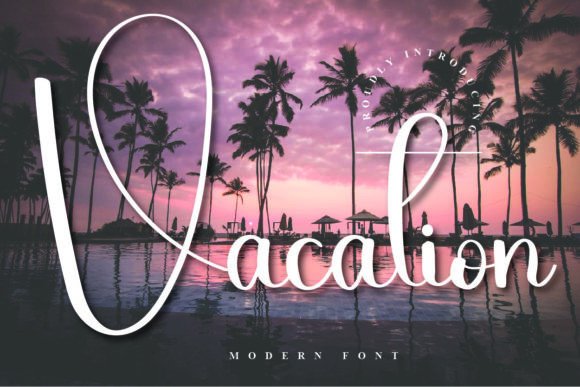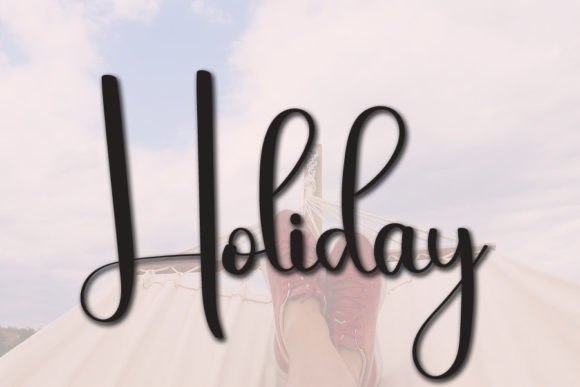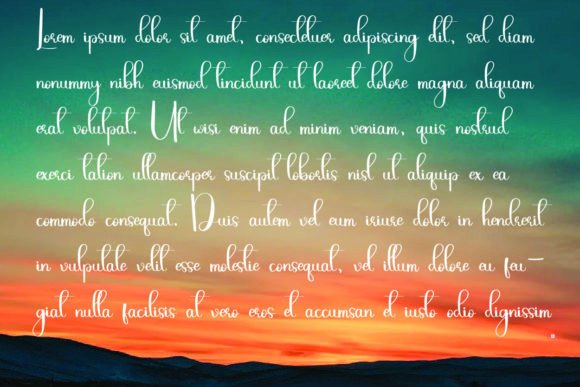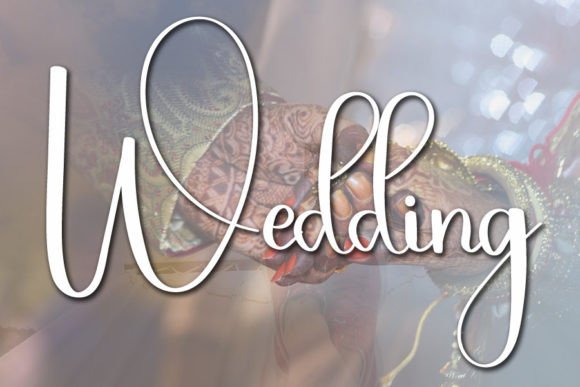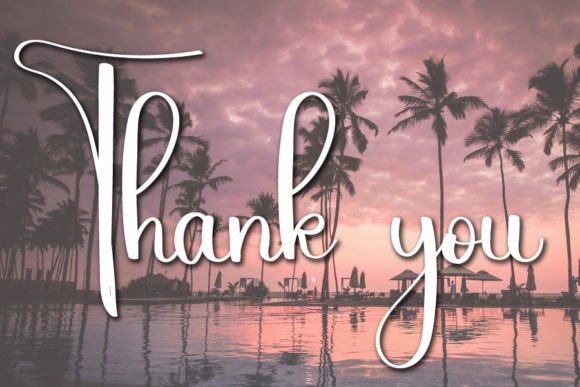
Vacation Font
Add Grace and Personality with Vacation Handwritten Font
The Vacation Handwritten Font is a beautifully crafted typeface that combines elegance with a warm and friendly tone. With its natural flow and charming letterforms, this font adds a personal touch to every project. Whether you’re working on something romantic or professional, Vacation offers the perfect balance of style and readability.
If you’re looking to elevate your design with handwritten beauty, Vacation is an excellent choice.
Perfect for Invitations, Quotes, Cards, and More
Vacation shines in creative applications such as wedding invitations, thank-you cards, and inspirational quotes. Its elegant script style brings warmth and sincerity to your message. When used on greeting cards, announcements, or event materials, the font communicates emotion and sophistication effortlessly.
Additionally, it’s a great option for business cards and logos, especially in fields like fashion, photography, wellness, and handmade goods. With Vacation, your branding looks both professional and personal—an ideal combination for trust and memorability.
A Handwritten Style That Stands Out
What makes the Vacation Font special is its fine blend of handcrafted charm and modern design. The script features flowing strokes and varied baselines that mimic real handwriting, making each word feel intimate and expressive. Despite its decorative flair, Vacation remains highly legible, even at smaller sizes.
This makes it perfect for use not only in headings but also in short passages of text, allowing you to maintain consistency throughout your design.
Works Seamlessly Across Print and Digital Media
The versatility of the Vacation font extends across both print and digital platforms. Whether you’re designing for websites, social media graphics, Pinterest quotes, or printable materials, this font maintains its elegance and readability.
To create a well-balanced composition, pair Vacation with a simple serif or sans-serif font for body text. This enhances both contrast and clarity while letting Vacation take the spotlight in headers or focal areas.
Why Designers Love Vacation Handwritten Font
• Elegant, natural handwritten appearance
• Enhances emotional connection in communication
• Easy to pair with minimalist fonts for balance
Make Every Design Memorable with Vacation
In summary, the Vacation Handwritten Font brings an elegant and charming personality to your designs. It’s ideal for both special occasions and everyday use, helping your work feel personal, heartfelt, and visually appealing.
Whether you’re crafting an invitation, designing a logo, or adding flair to your branding, Vacation is the handwritten font that will bring your creative vision to life.